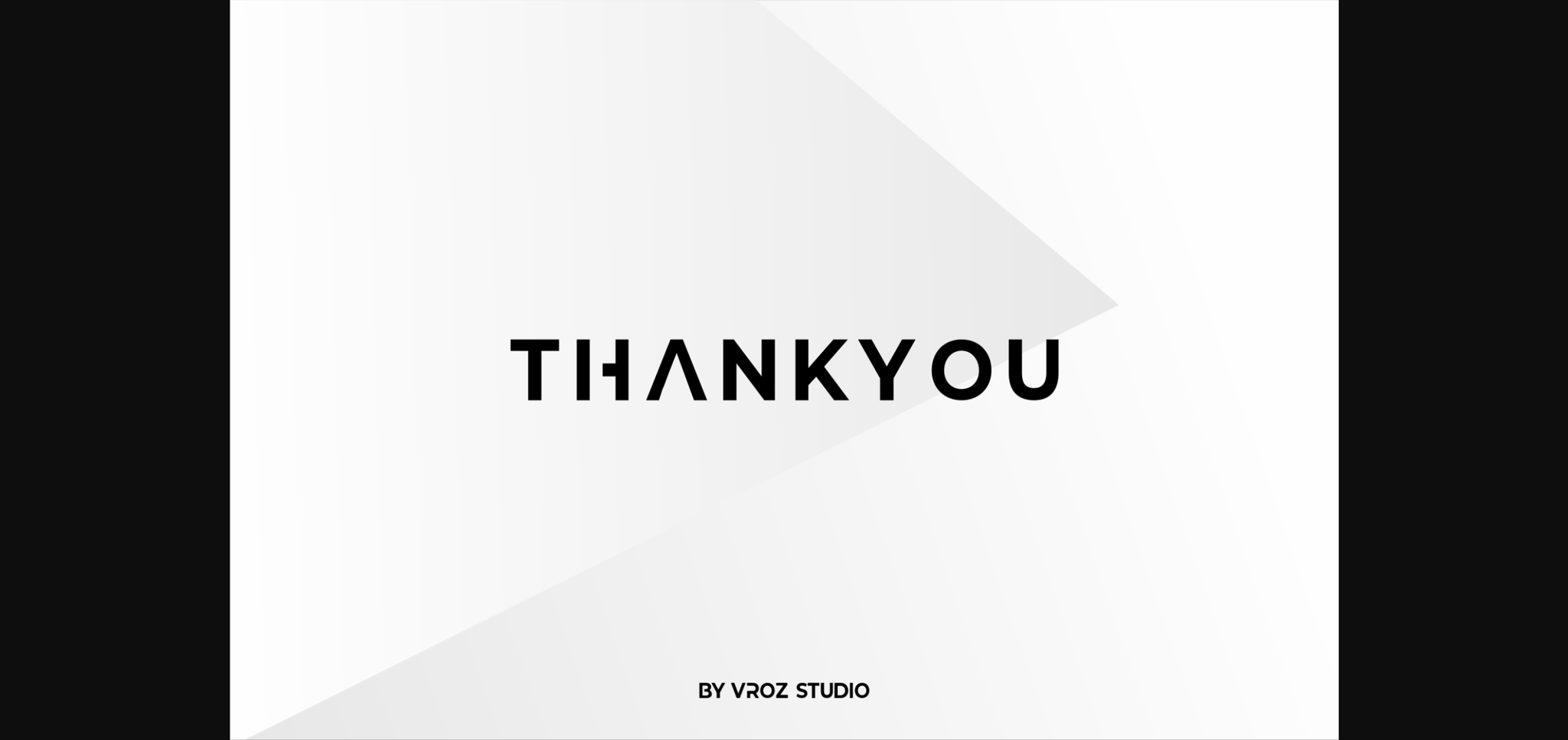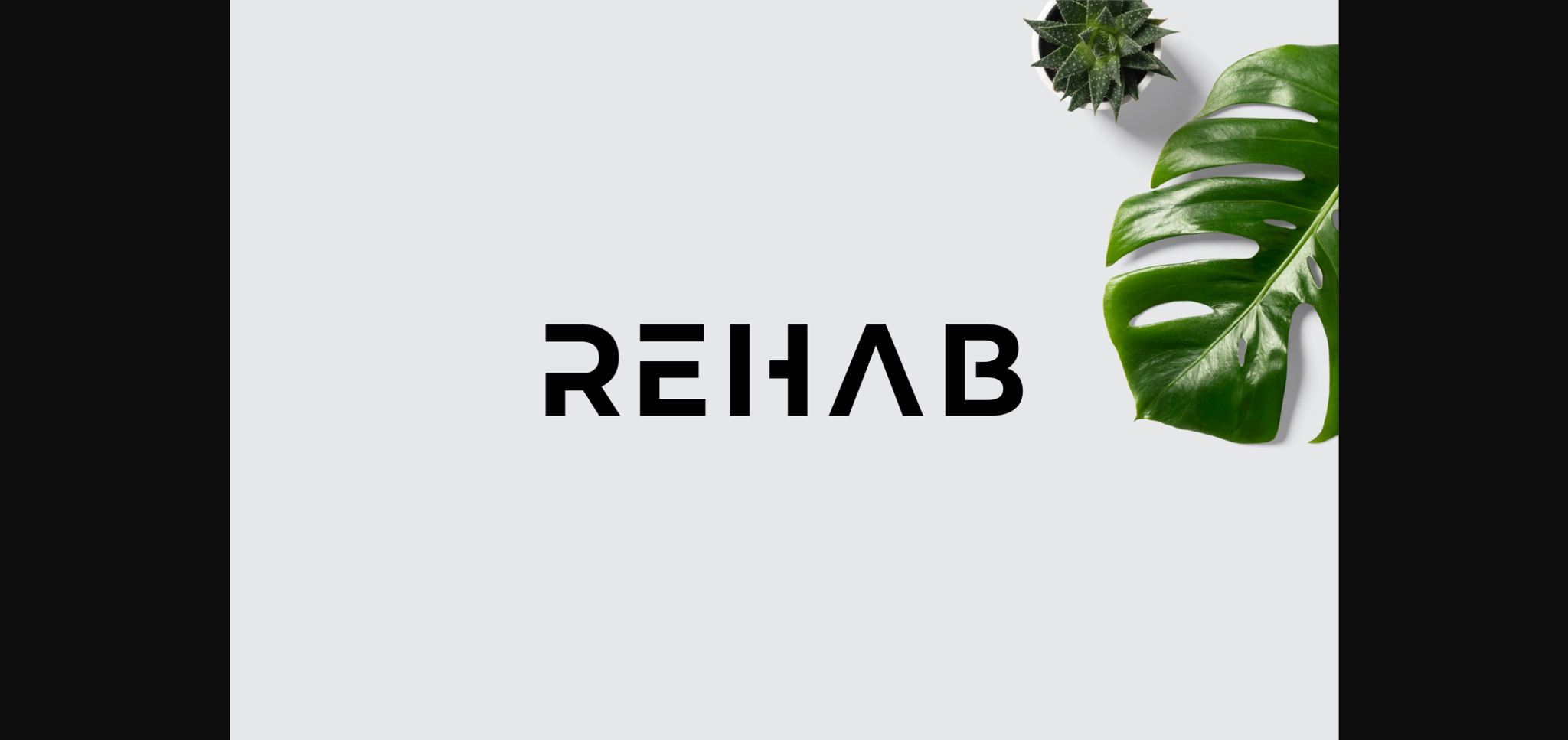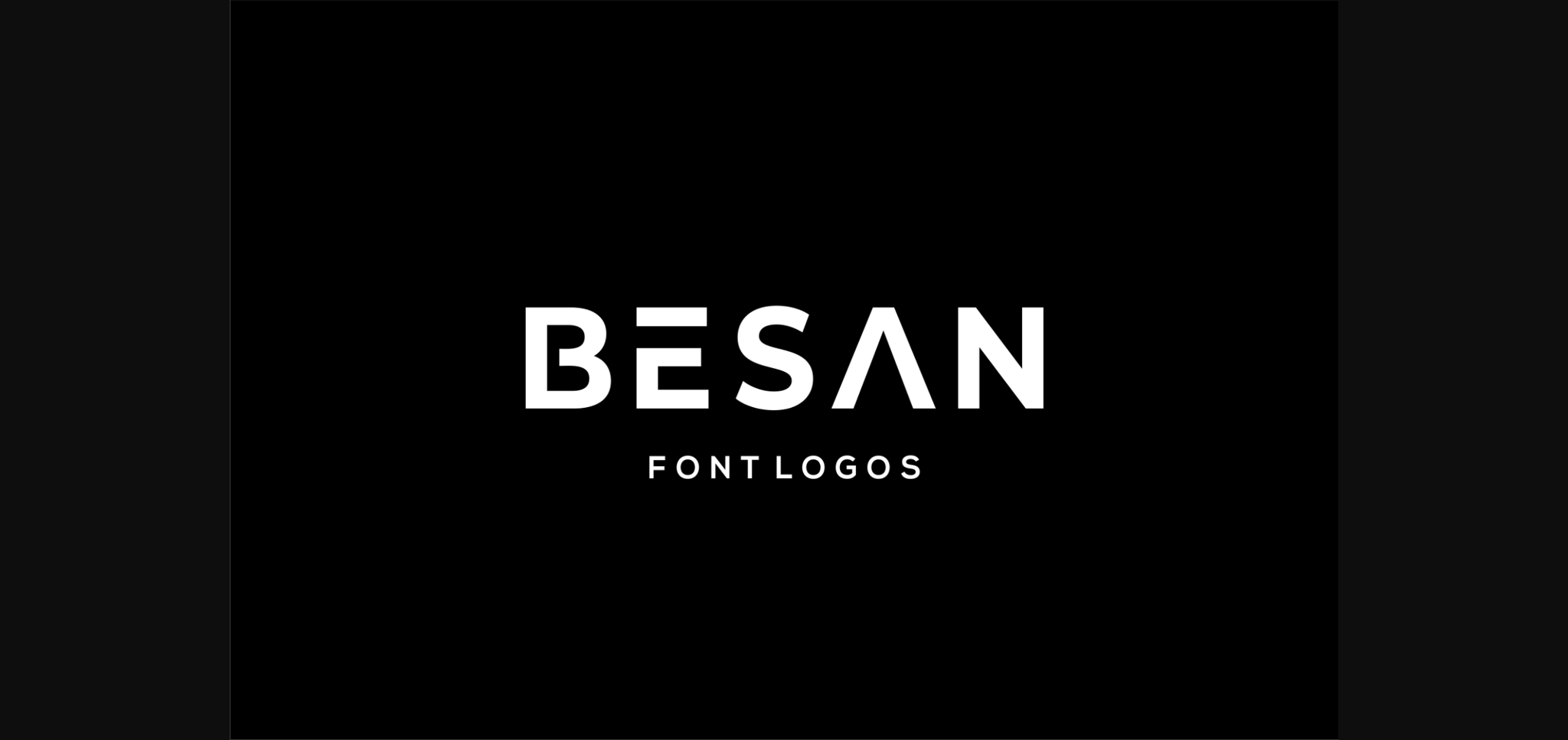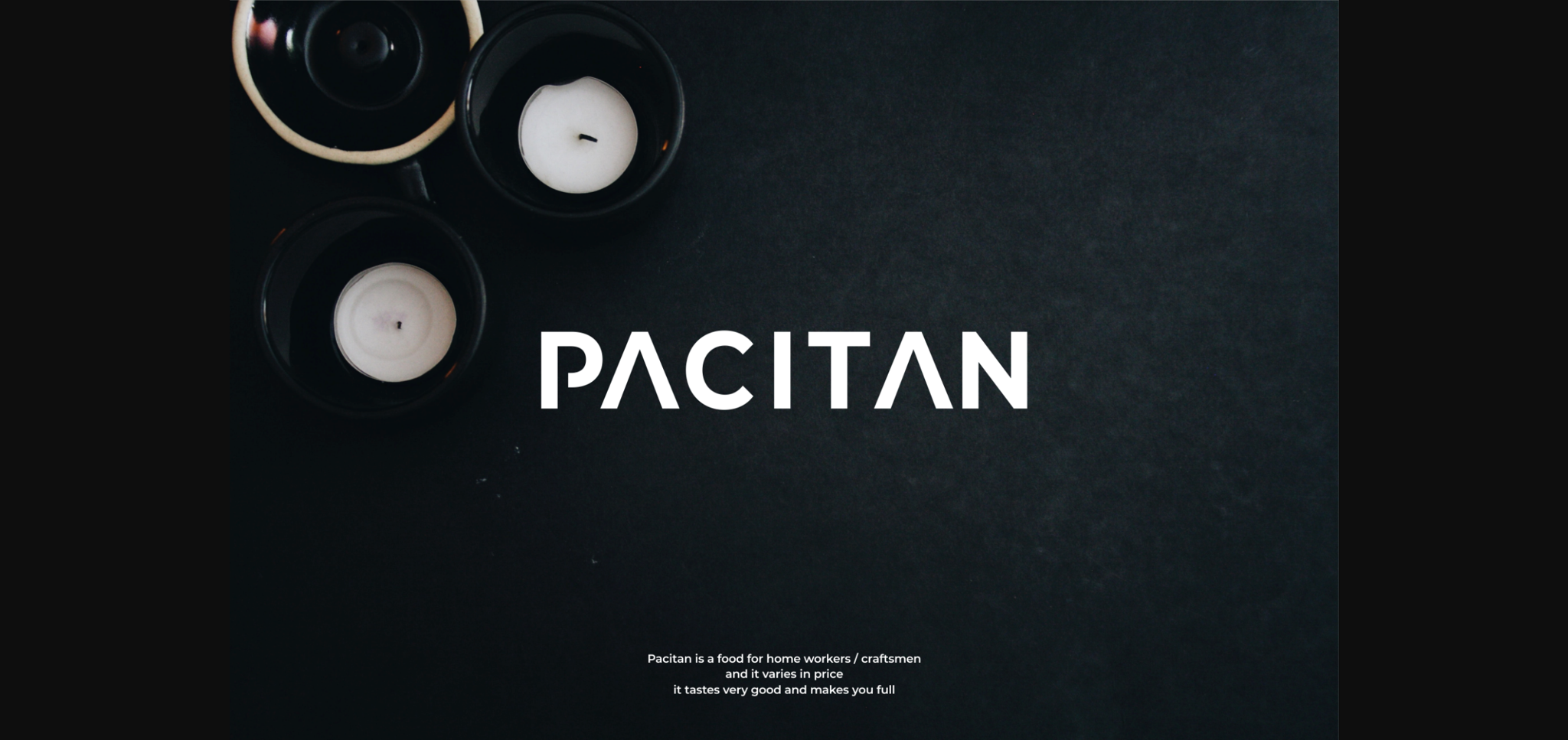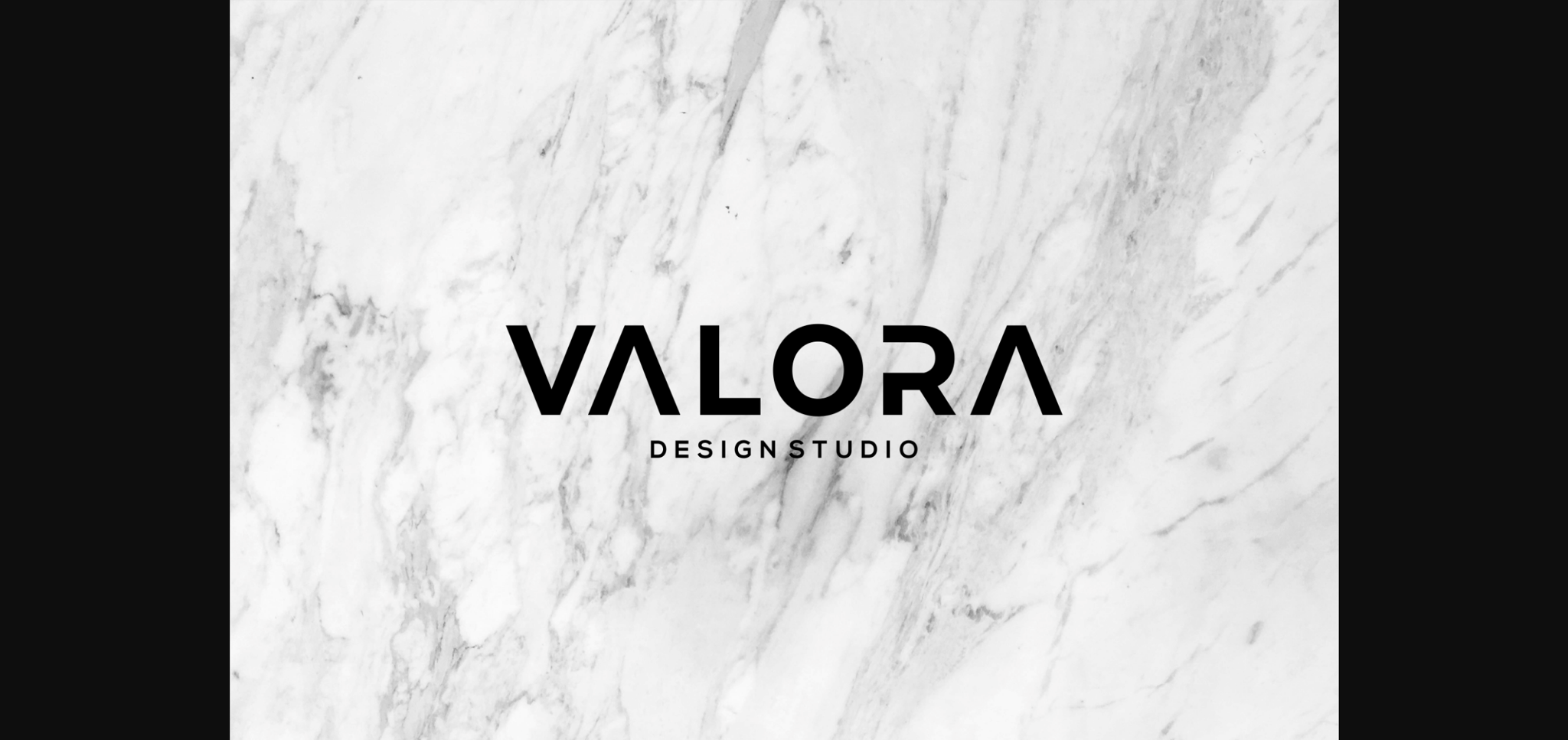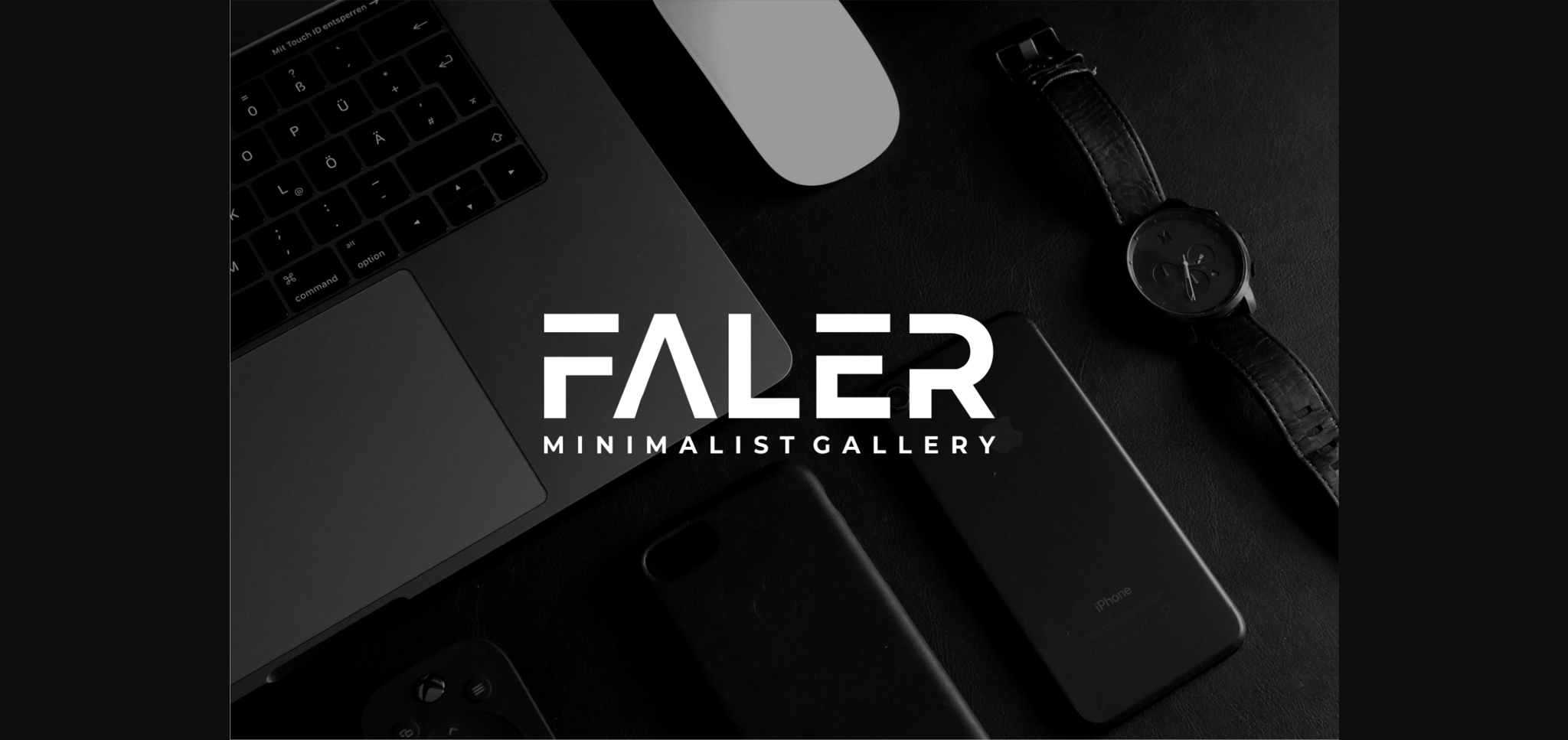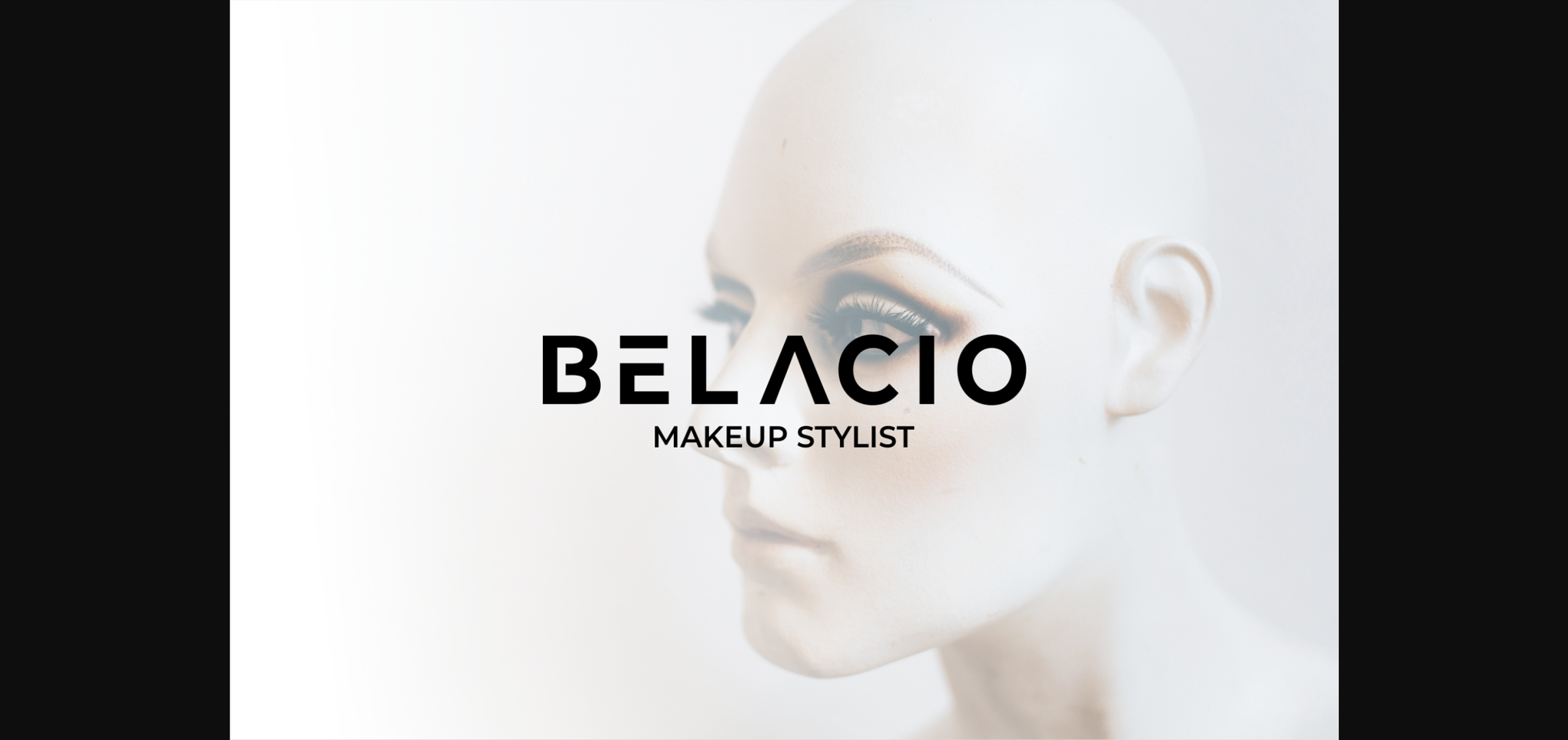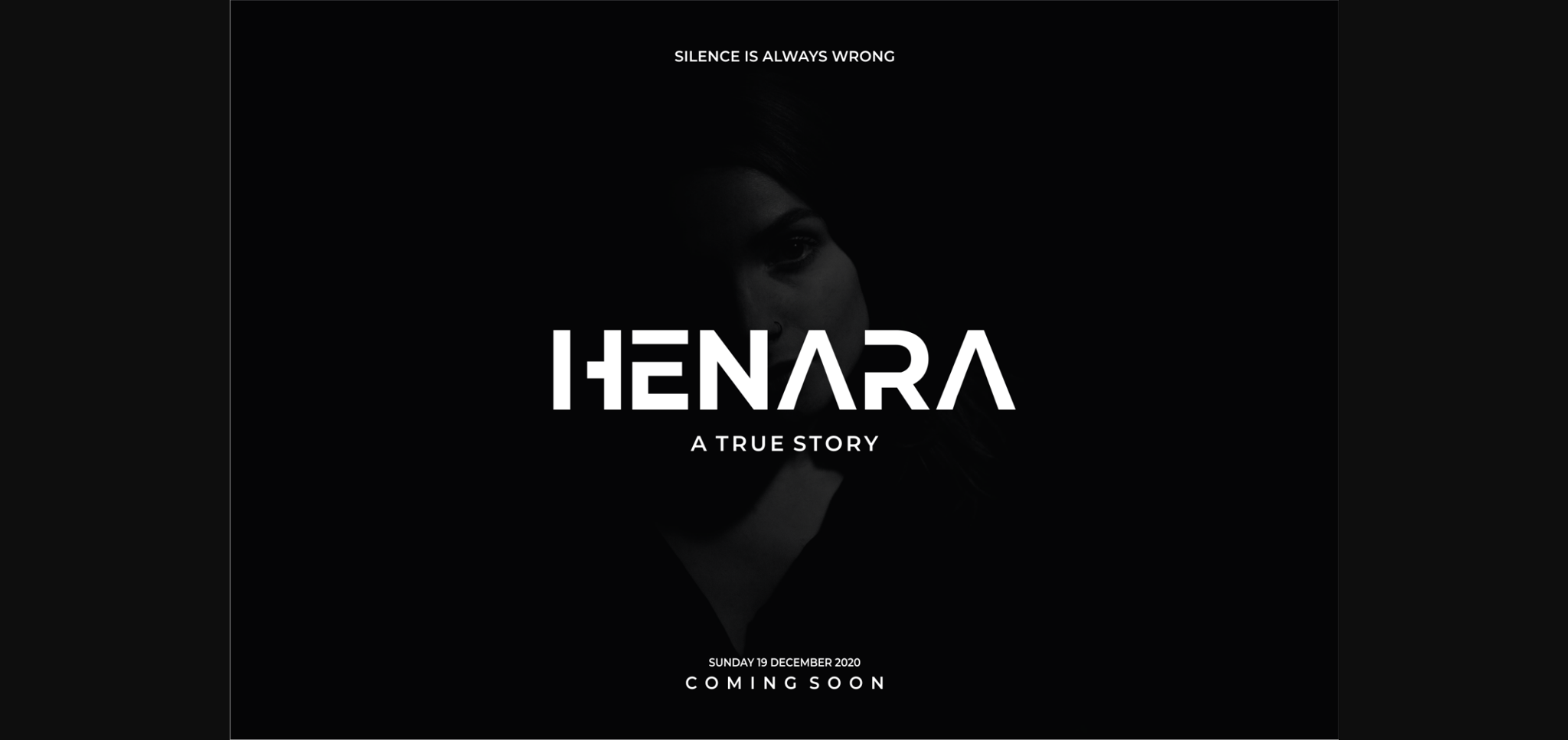
HomeSans Serif FontsBesan Font Sans Serif Fonts Besan Font FacebookXPinterestWhatsApp 1 of 10 ... Besan Font Poster 2... Besan Font Poster 3... Besan Font Poster 4... Besan Font Poster 5... Besan Font Poster 6... Besan Font Poster 7... Besan Font Poster 8... Besan Font Poster 9... Besan Font Poster 10... About Besan Font Besan is an all-caps, minimalistic, and modern Sans Serif font that is well-suited to create logos, wordmarks, titles, taglines. This font is perfect for those that like a minimalist and clean design. DOWNLOAD NOW People also explored Baby Shopia Font Harry Sunday Font HT Motel Callista Font Shamantha Font Absolute Monogram Font Couline Font Handmade Font Big Love – Wedding Font 302 0 TagsBesanBesan Font Previous articleAverox FontNext articleBaby Cat Font LEAVE A REPLY Cancel reply Comment: Please enter your comment! Name:* Please enter your name here Email:* You have entered an incorrect email address! Please enter your email address here Website: Save my name, email, and website in this browser for the next time I comment. Personal Use Free Bukan Personal Use Free Read more about this font Loopina Personal Use Free Read more about this font Adelfa Personal Use Free Read more about this font Soria Personal Use Free Read more about this font BLOG 5 Fonts That Will Dominate Design Trends in 2026 5 Fonts for 2026 That Will Dominate Design Trends Typography plays a critical role in visual communication, and as we look ahead to 2026, it’s... How to Install and Use Fonts on Windows, macOS, and Web Projects Modern Sans-Serif Fonts That Brands Love in 2025 Using Fonts in Digital Marketing: Tips to Strengthen Your Brand Identity